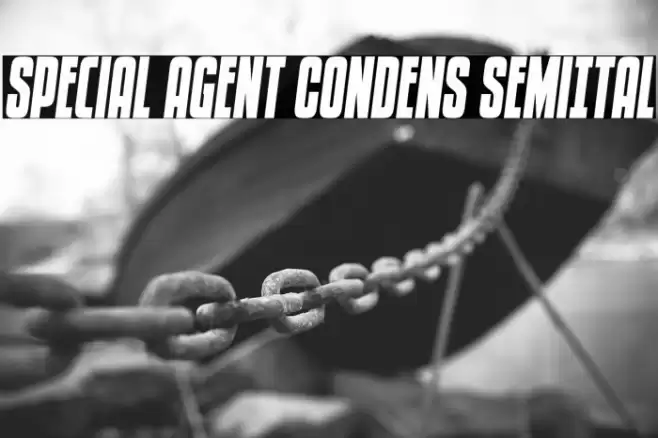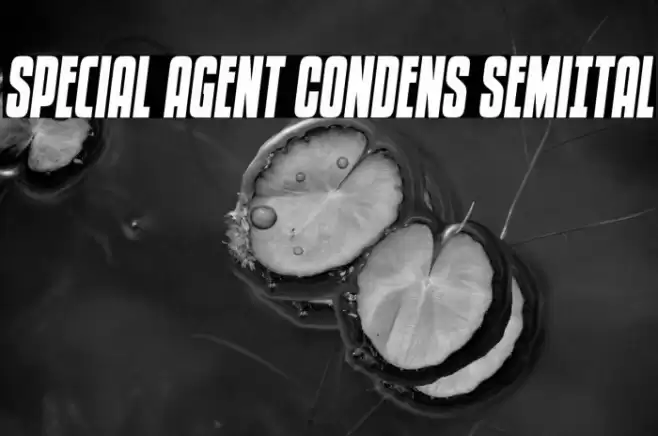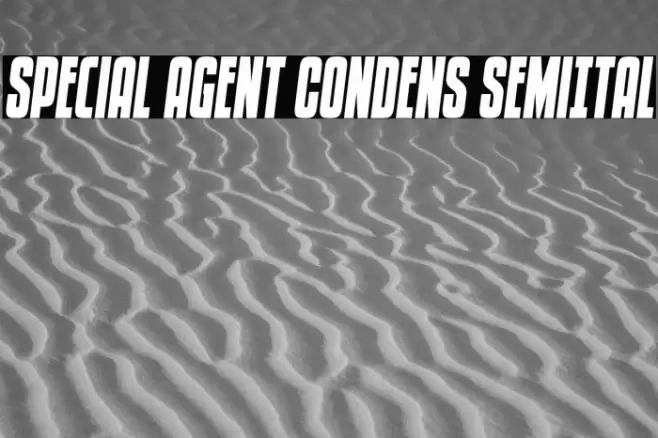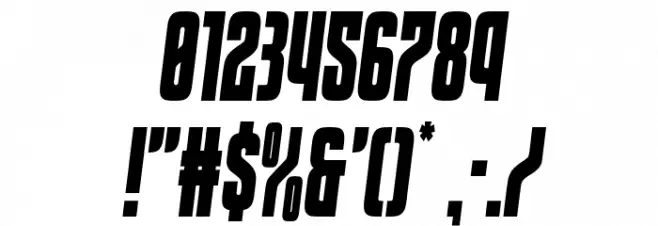
Special Agent Condens SemiItal Font
Special Agent Condens SemiItal Description
This font exhibits a bold and dynamic style with a condensed width, giving it a strong and impactful presence. The characters are slightly italicized, adding a sense of motion and urgency. The uppercase letters are particularly striking, with sharp angles and a modern aesthetic. The numbers and special characters maintain the same boldness and style, ensuring consistency across all elements. This font is designed to grab attention and convey a sense of strength and authority.
A bold, condensed, and slightly italicized font with a modern and dynamic style from Uncategorized fonts.
- Proposed Projects: Ideal for use in action movie posters, sports branding, or any project needing a bold and energetic typeface.
- Character Spacing: Tight